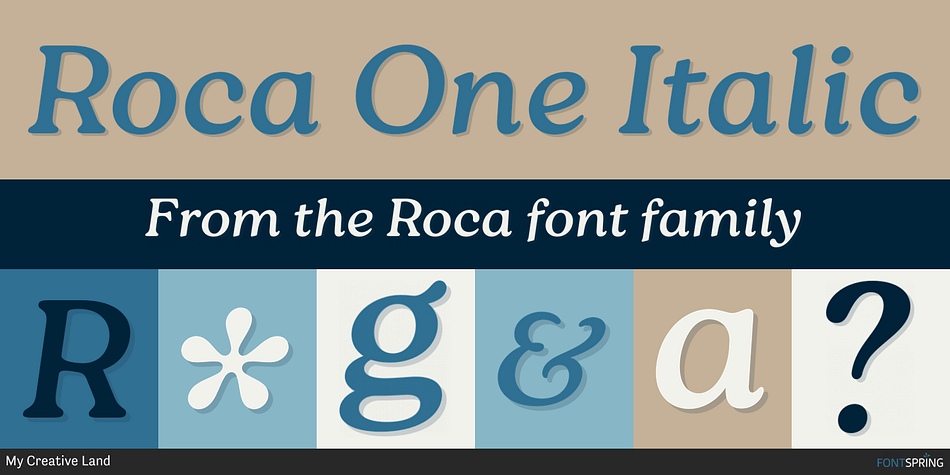
Roca One Italic
Designed by Elena Genova, Roca is a retro and serif font family. This typeface has twenty-four styles and was published by My Creative Land.
Initially started as an extension to Praline MCL, Roca transformed into a new font family - influenced by the same fonts as Praline - Windsor and Cooper Black - the hits of 60s and 70s – with a hint of Bookman.
Created in 2 styles and 6 weights that can be mixed and match, it contains 24 fonts including alternates and true italics . It is full of OpenType features – stylistic alternates and ligatures.
This multilingual font family supports most of the European languages as well as Cyrillic ones (Russian and Ukrainian).